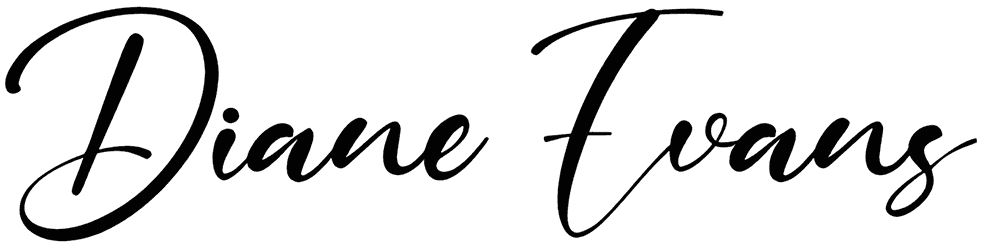
Diane Evans Font
Fill in time and go to experience designing a typography project with natural letters, and make a nice result that speaks for itself. The Diane Evans font comes to help you find yourself on a winning stage in designing the banner, cards, logotype, and the like.
Right now, embrace the chic aura of this soft handwritten font on your simple lettering. Judging by the preview work before your eyes, you could say it’s nothing but an endearing assortment!